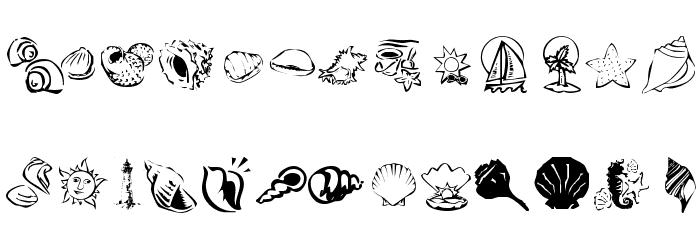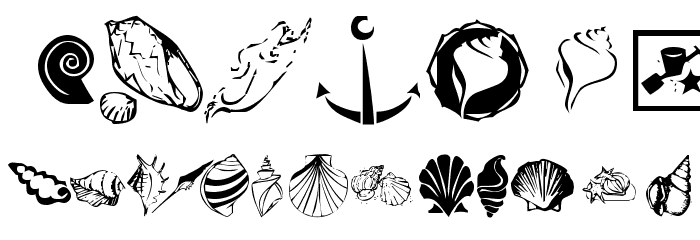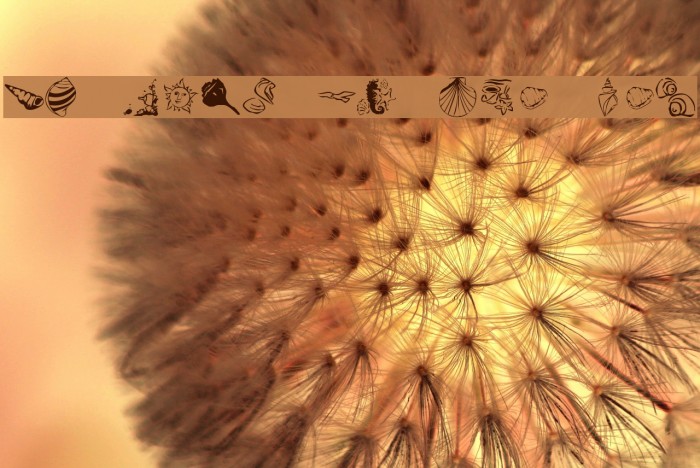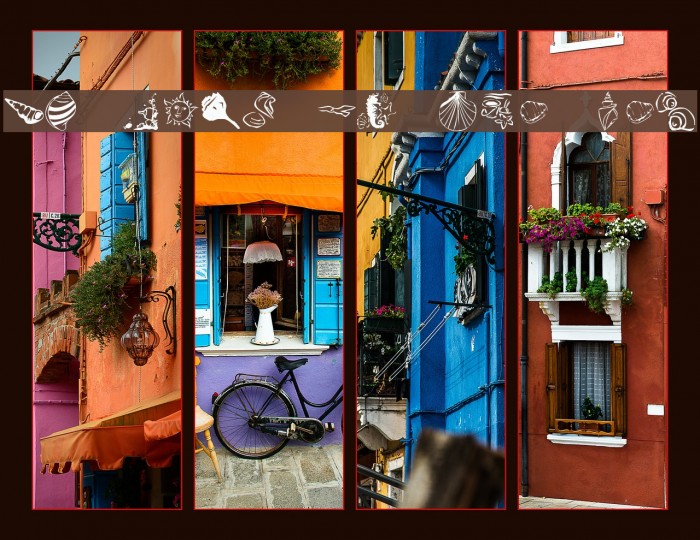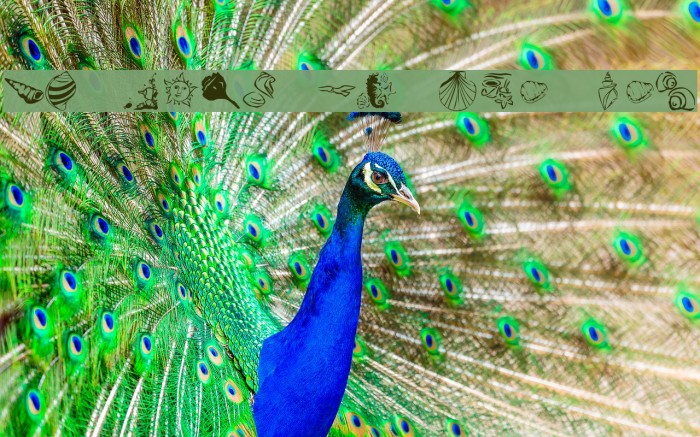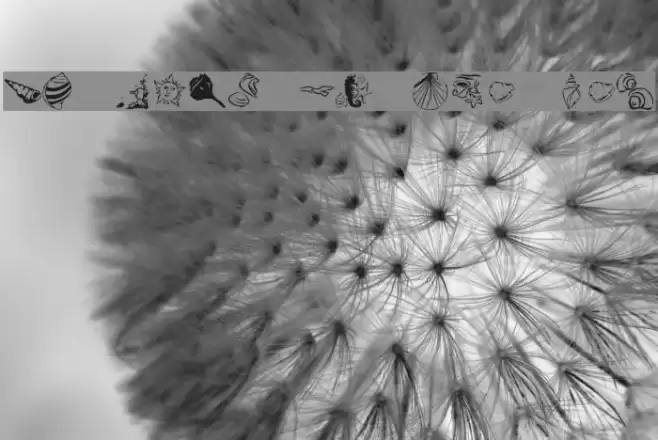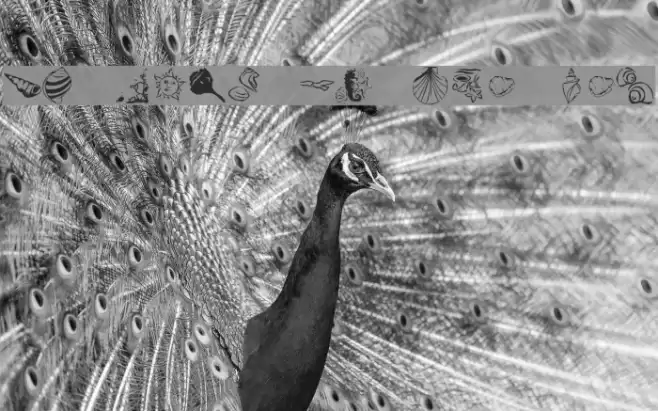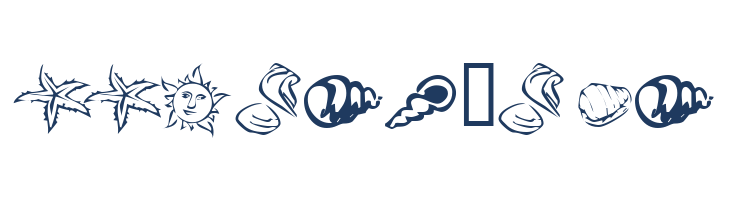
KR Down By The Sea Font
This collection features a variety of sea-themed decorative elements, including shells, starfish, and marine creatures. Each symbol is intricately designed, capturing the essence of oceanic life with detailed line work and artistic flair. The elements are diverse, ranging from simple outlines to more complex, filled designs, providing a versatile set for creative projects. The style is whimsical and playful, ideal for adding a touch of the seaside to any design. These elements can be used individually or combined to create unique compositions.
A whimsical collection of sea-themed decorative elements with intricate designs.
- Proposed Projects: Ideal for beach-themed invitations, scrapbooking, educational materials, and decorative art projects.
- Use Case: Decorative art, Themed invitations, Scrapbooking